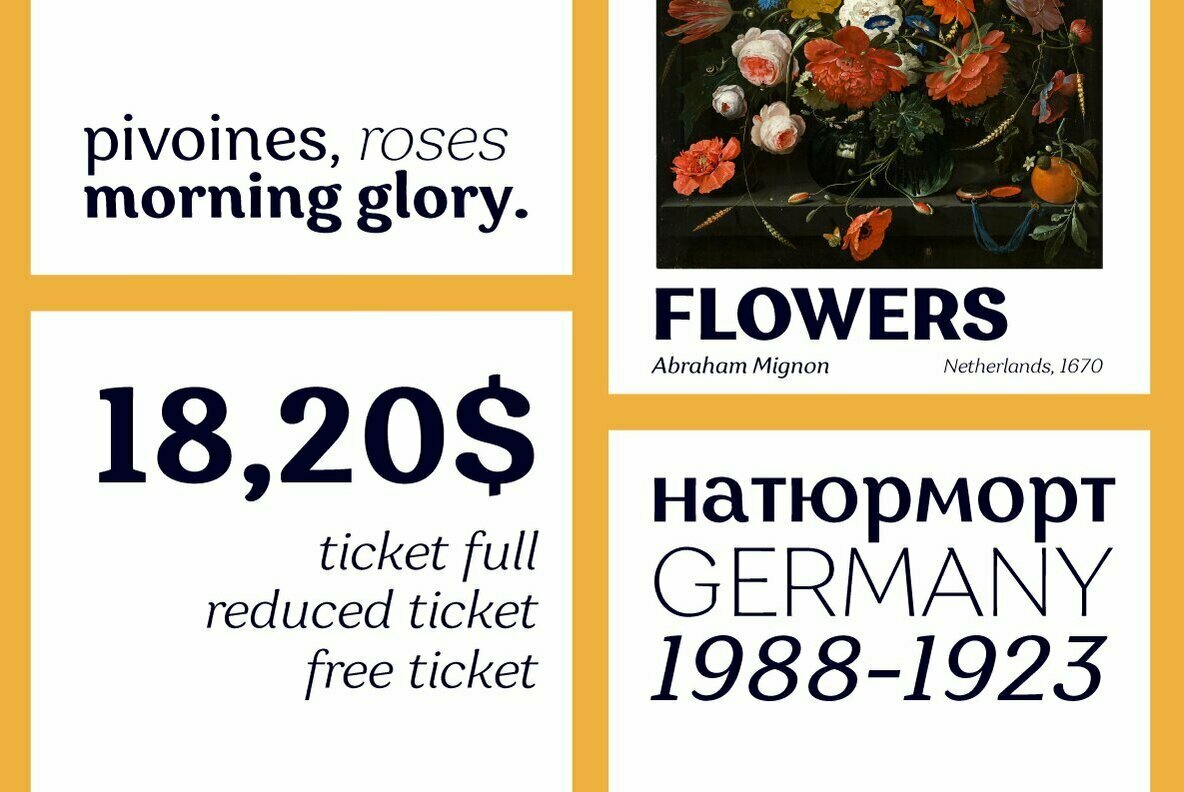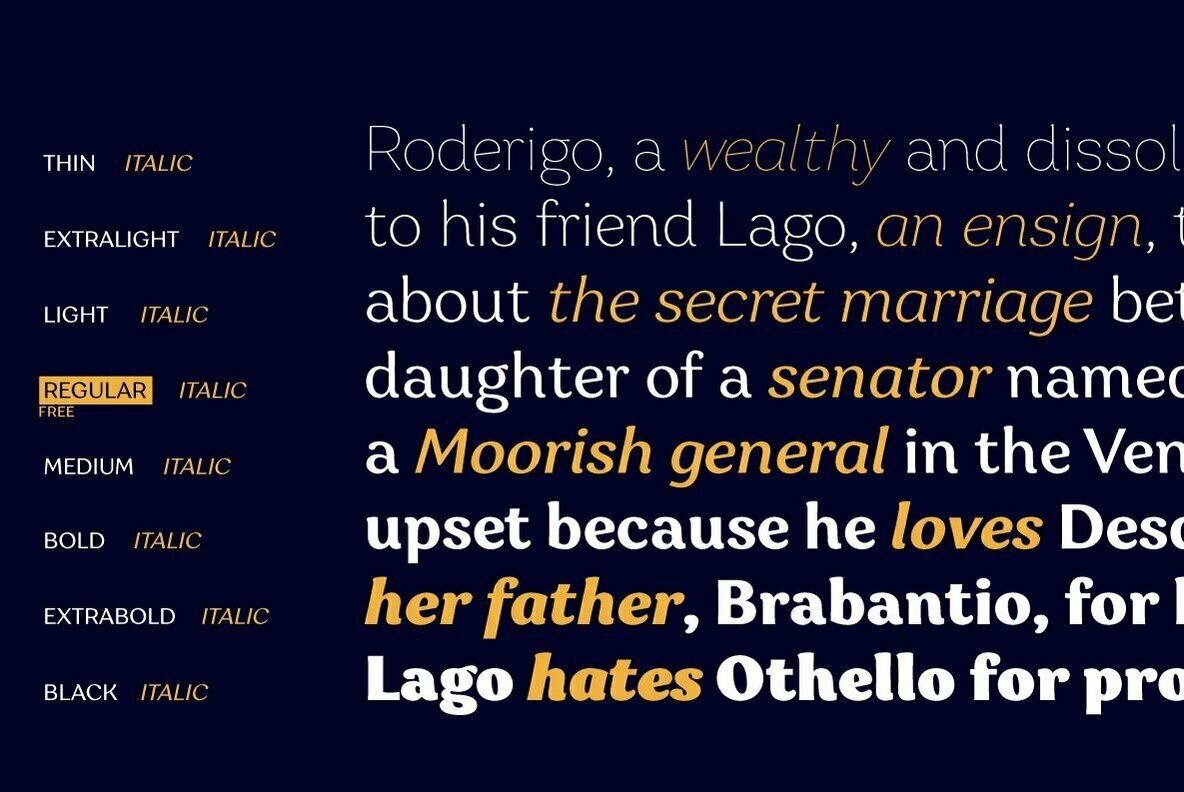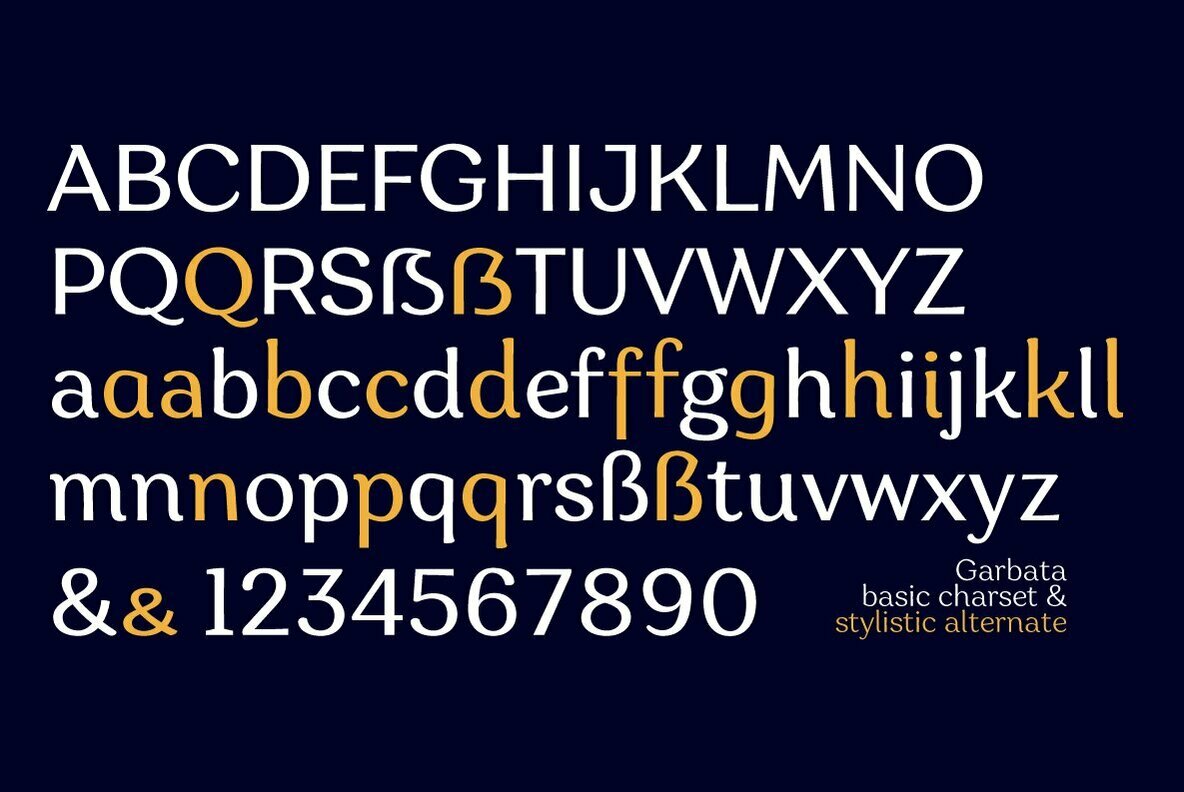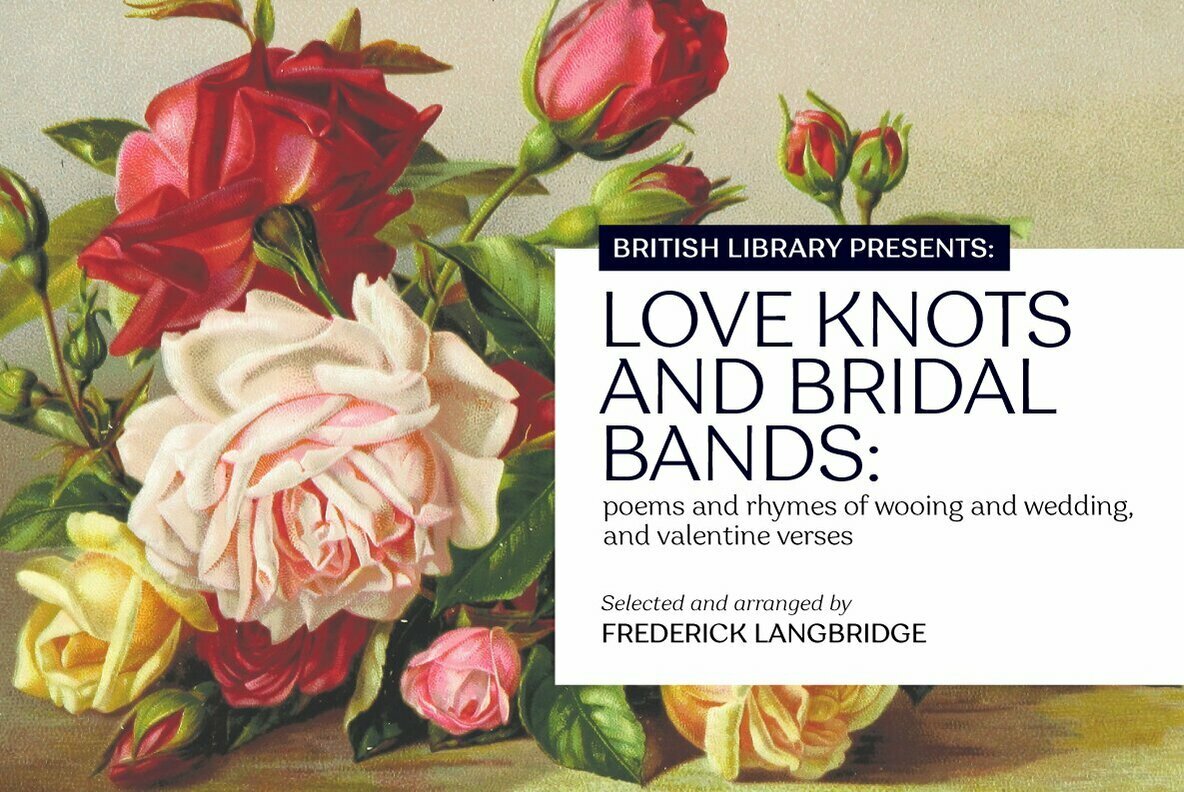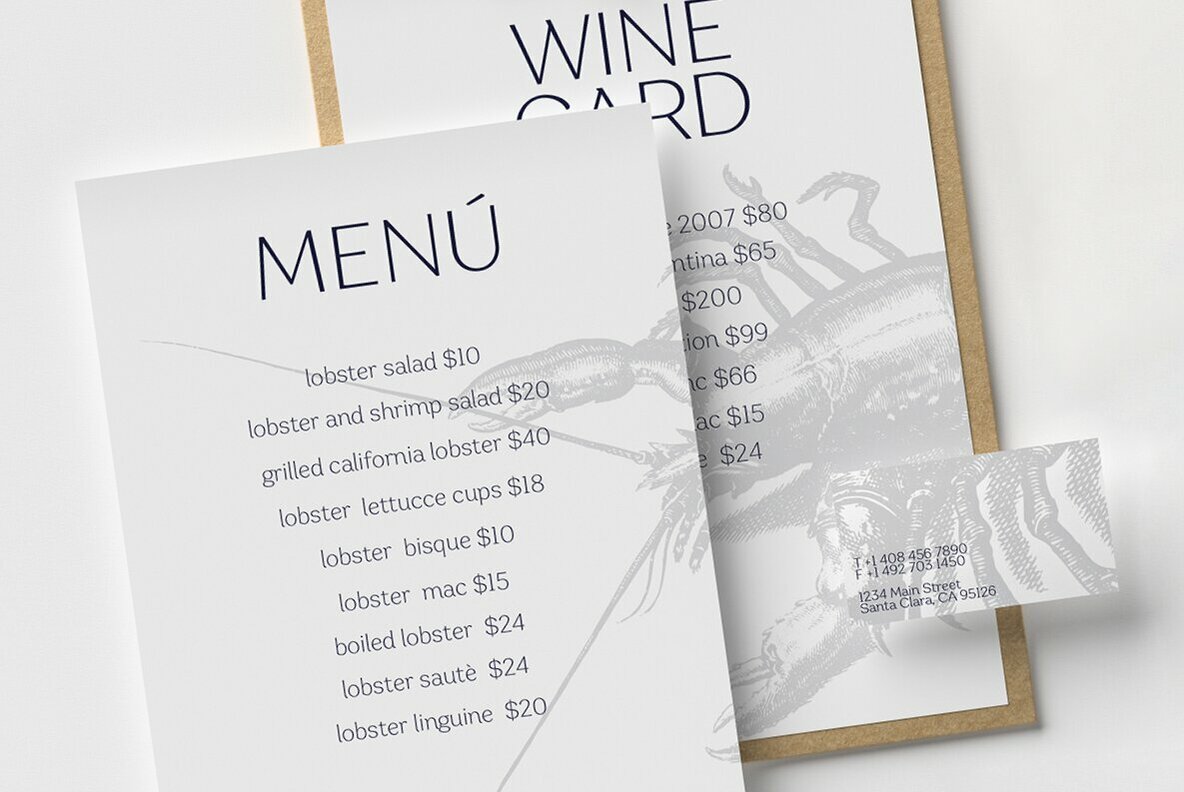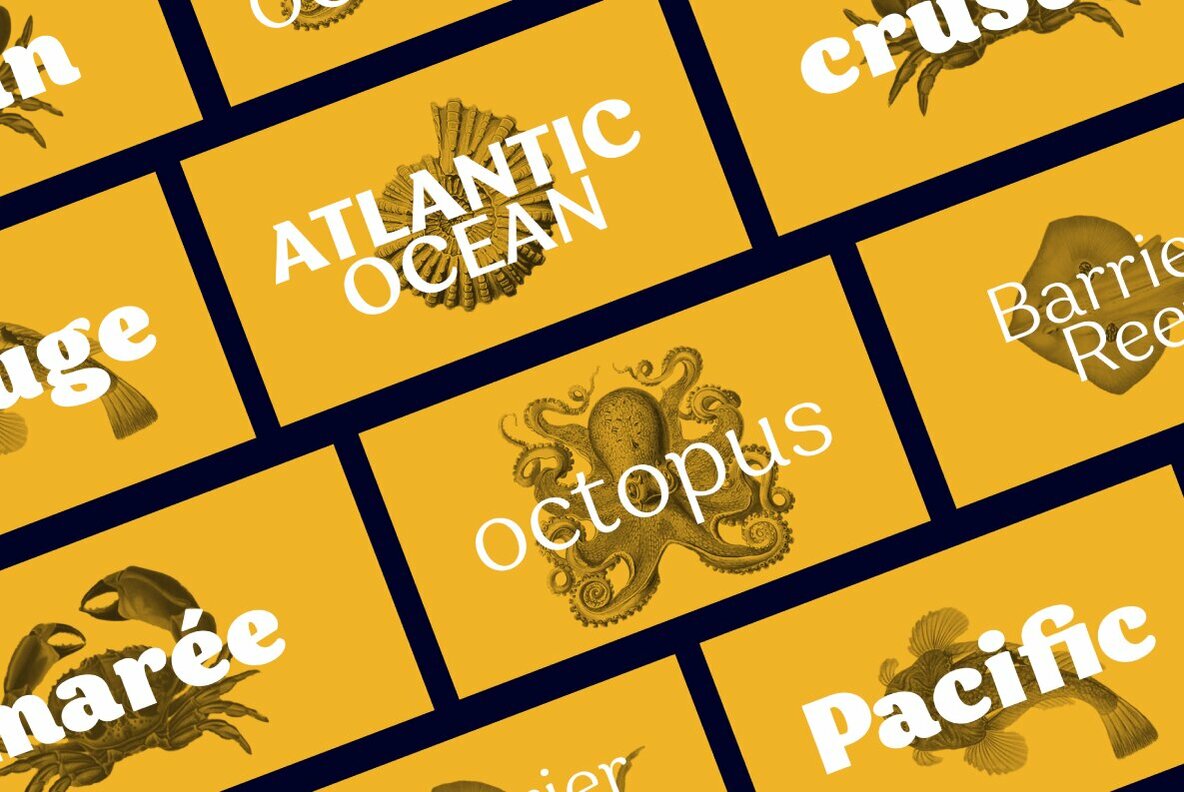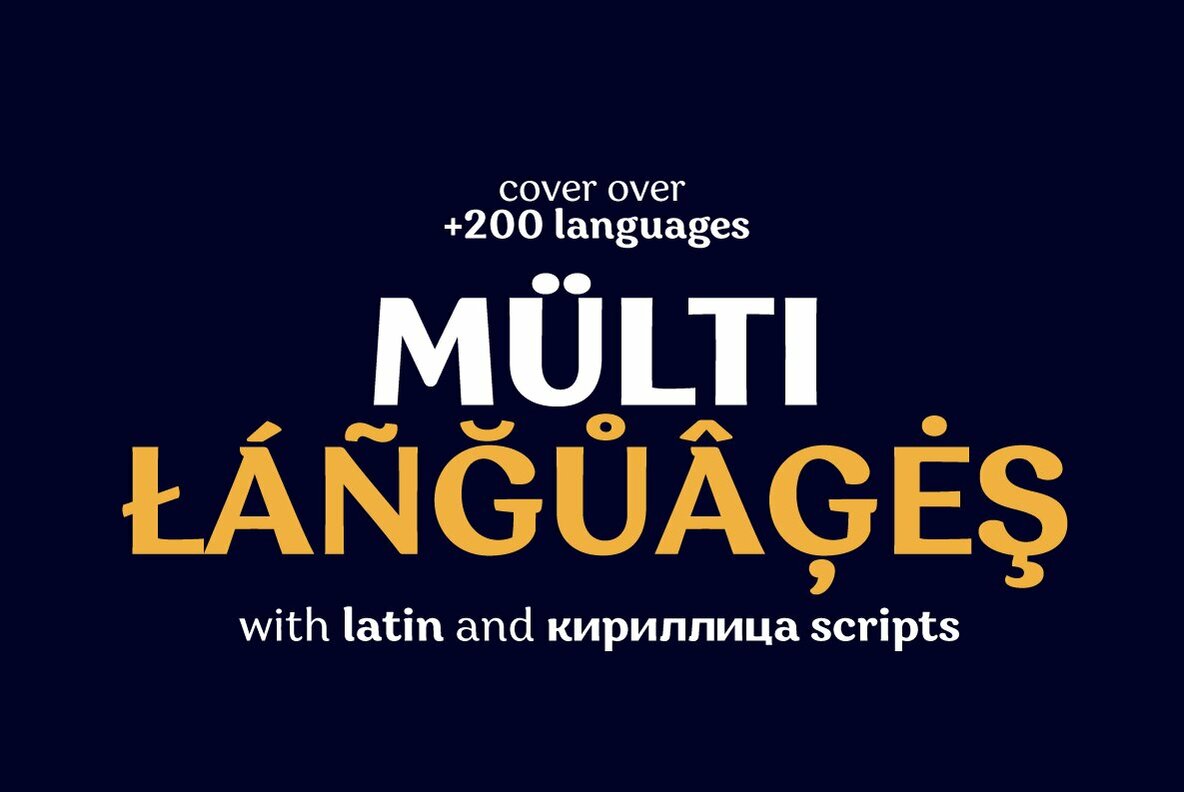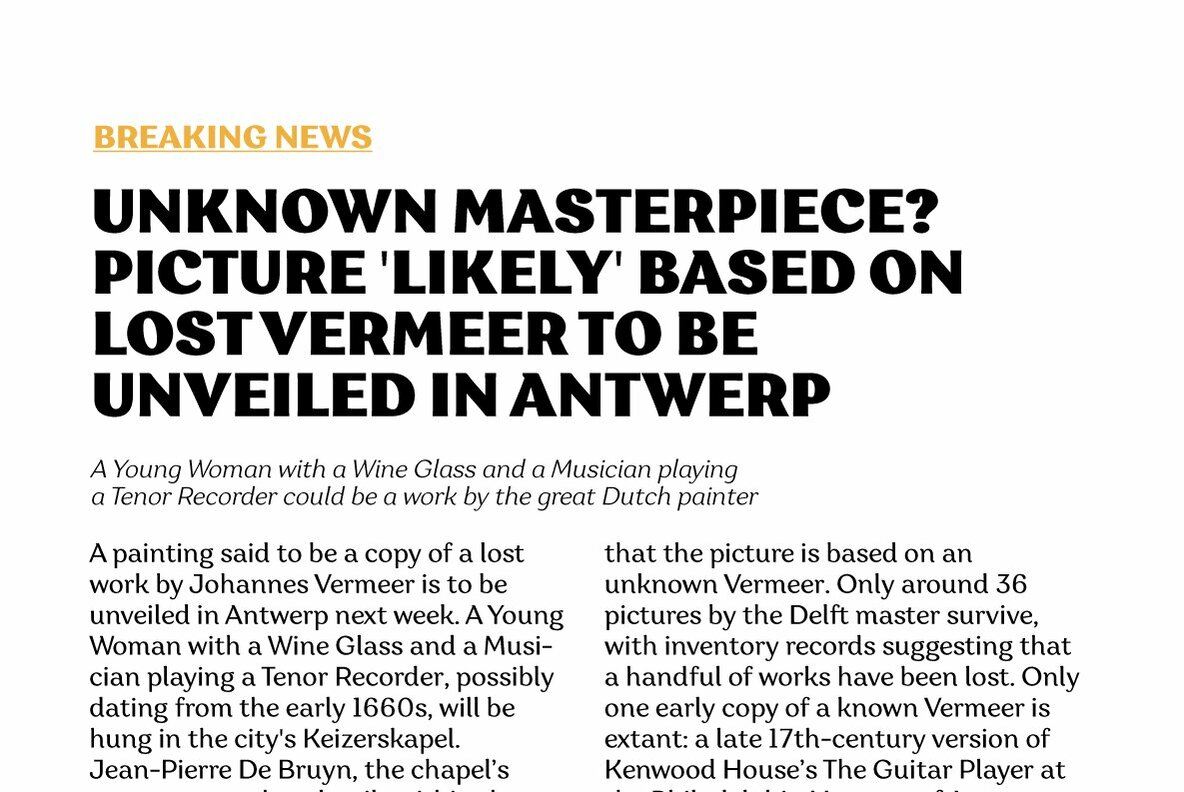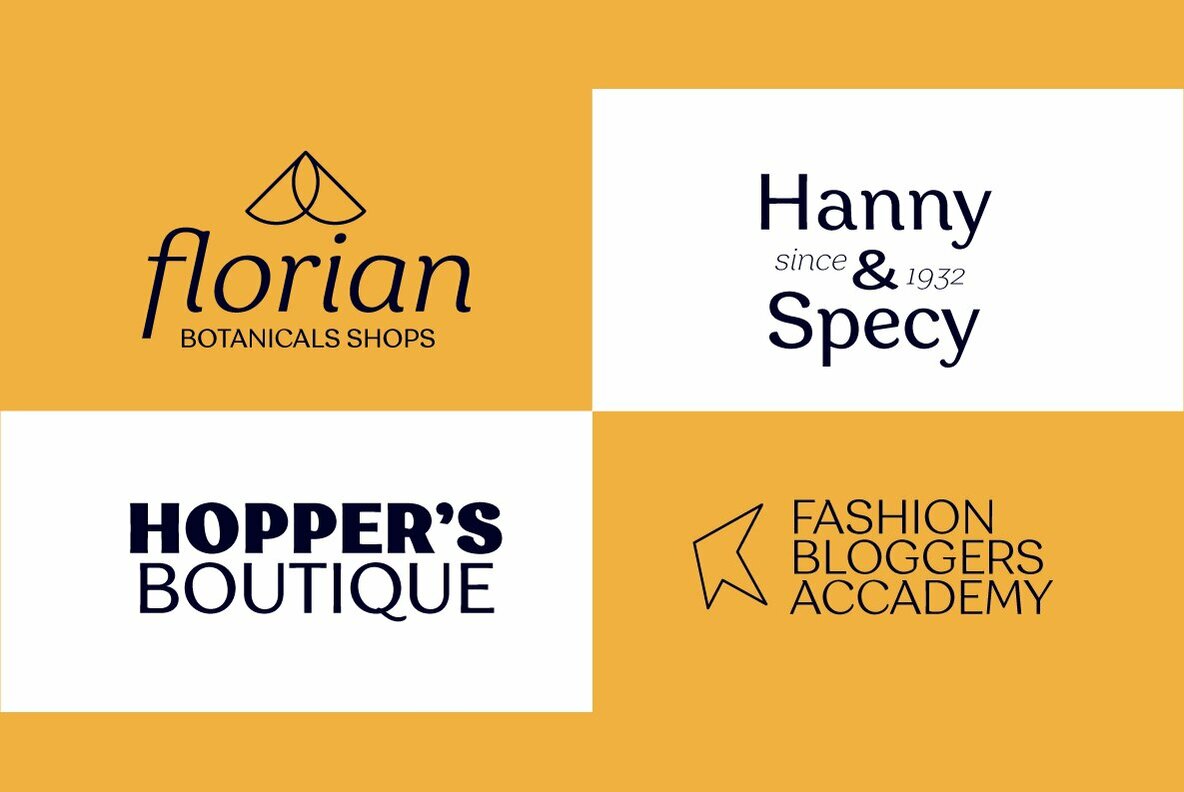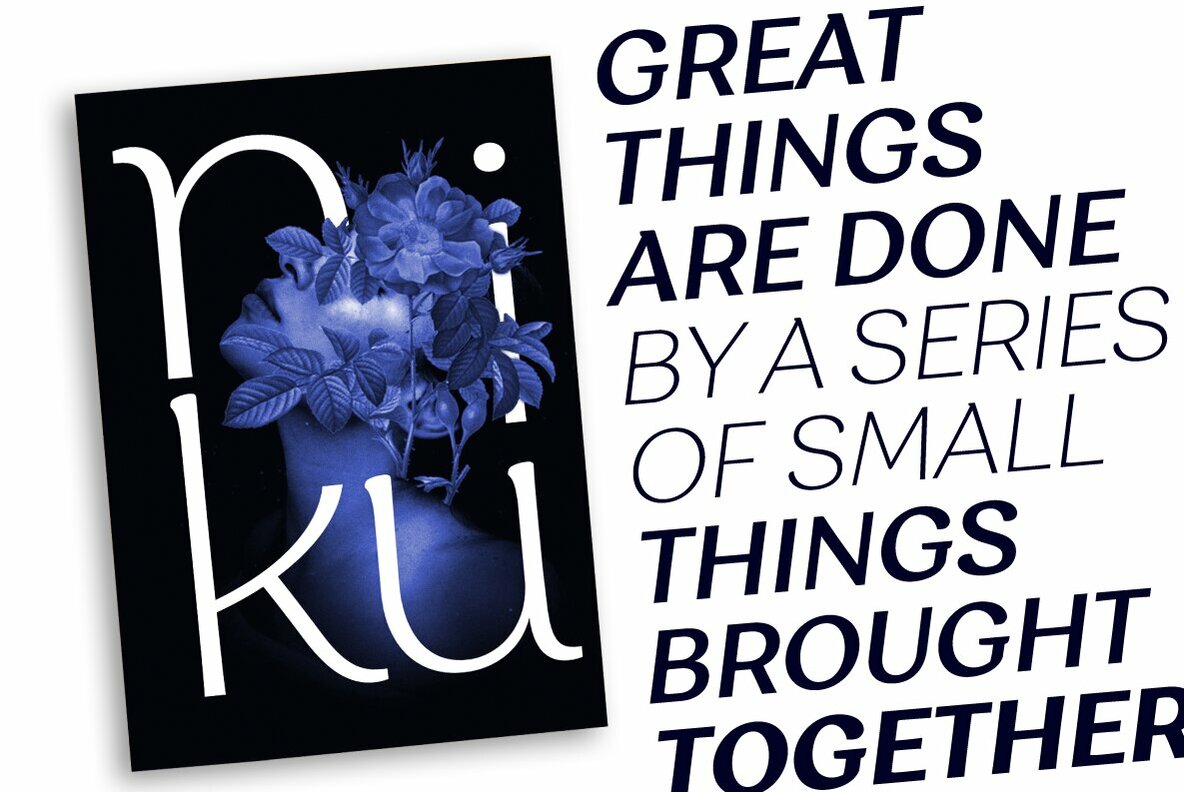
Garbata Font
Garbata was designed in 2020 by Francesco Canovaro, looking for an approach to sans serif design that ignored the over-exploited grotesque and modernist models. It takes its skeleton from old style typefaces like Windsor or Cooper, keeping the quirky sloped shapes of some letters and adding to the historical smooth shapes a flat brush calligraphic sensibility.
The result of these different historical influences is a humble yet distinctive sans serif typeface, developed in a wide range of weights, with finely-tuned differences between the medium, text-oriented cuts (with wider tracking and more regular design) and the more extreme, display-oriented weights. This play on subtlety allows Garbata to be surprising in all uses: humble and readable when set in body text, it shows all its elegant, whimsical qualities in logo design and display use. Equipped with all advanced Open Type features you expect from a production typeface, Garbata comes with an extended character set covering over two hundred languages with latin and cyrillic glyphs.
Designed with an Italian sensibility mixing craftsmanship and artistry, Garbata is ready to help you make your designs timeless, elegant and unusual.